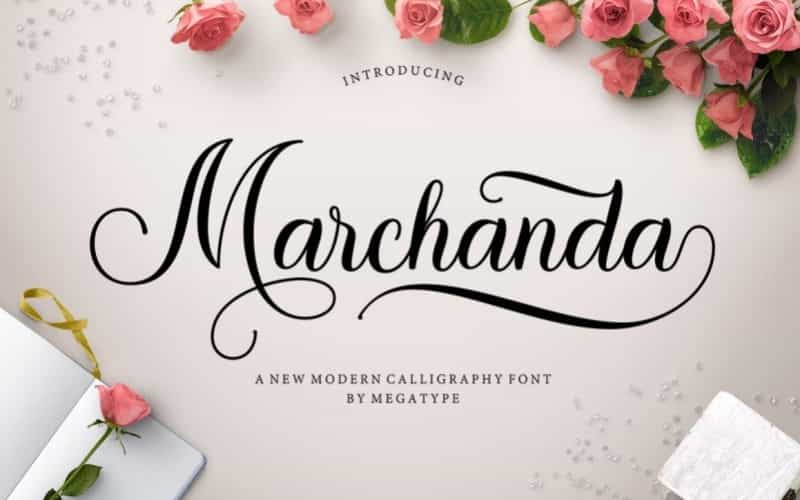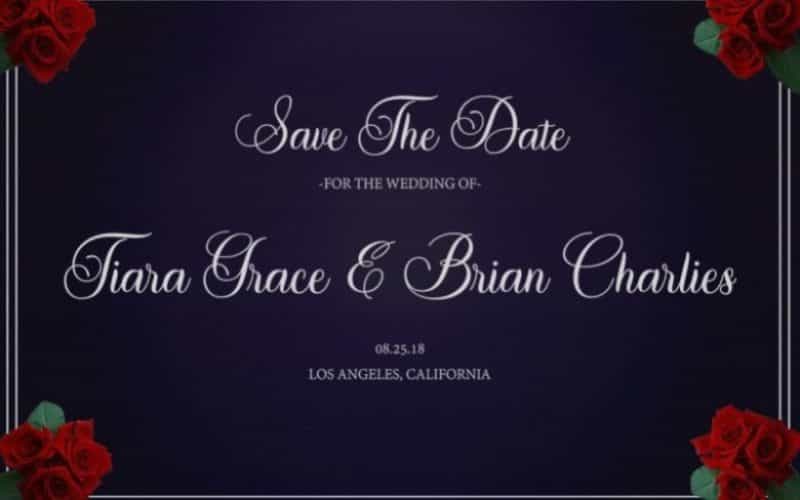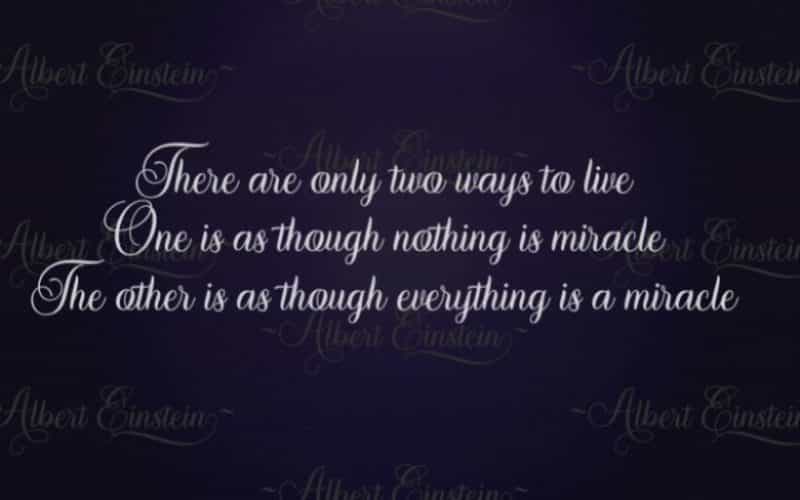
Marchanda is a very nice and elegant modern script that exists in both regular and slanted variations; it is pretty with swashes, so use Marchanda for various designs and projects which require an elegant and classy look.